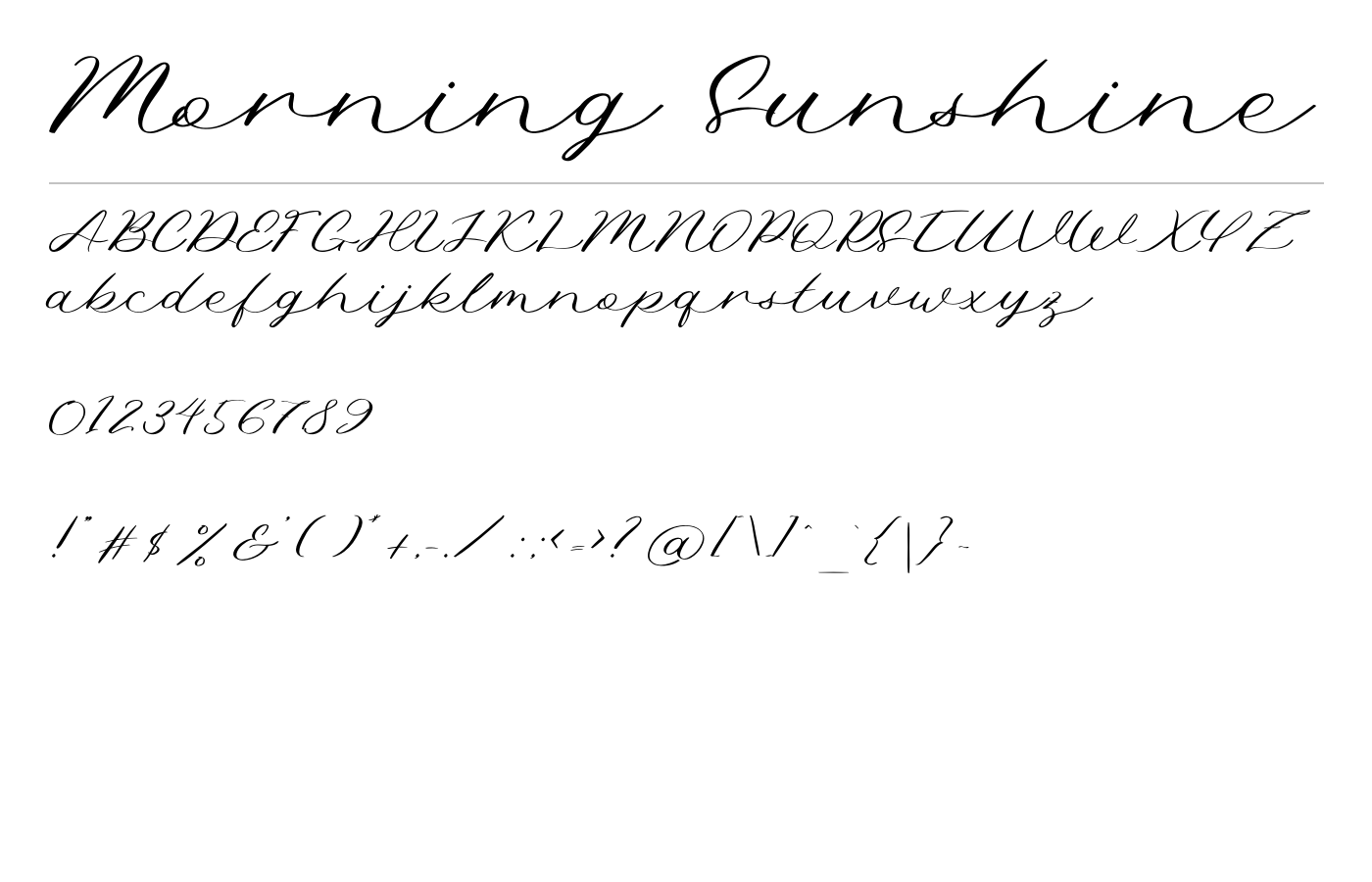
Morning Sunshine is a delicate, elegant script font with a light, flowing style that mimics natural handwriting. Its thin, smooth strokes and soft curves create a graceful and airy feel, making it perfect for invitations, branding, and feminine or romantic designs that require a personal, stylish touch.
Morning Sunshine Font
About Morning Sunshine Font